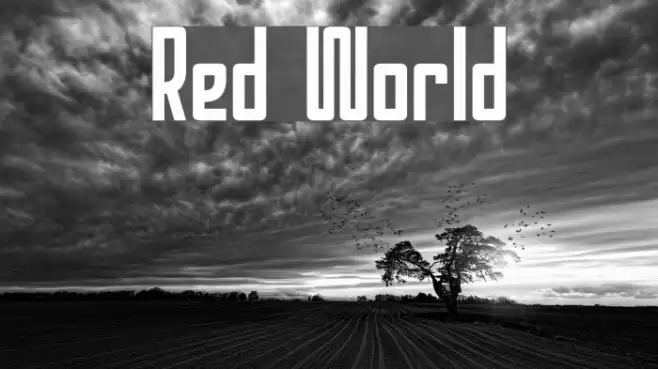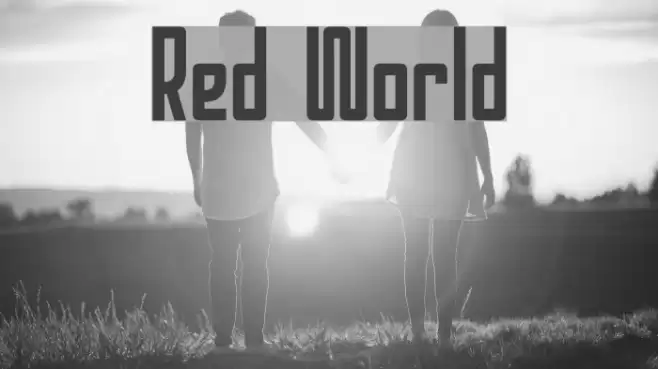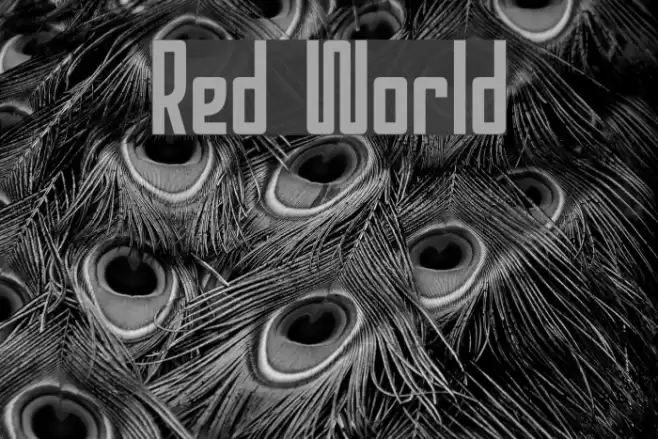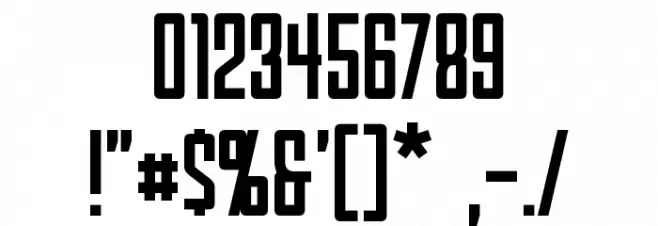
Red World Font
Red World Description
This font features a bold, geometric design with a distinctly modern and industrial feel. The characters are constructed with straight lines and sharp angles, giving it a strong and assertive presence. The uppercase letters are tall and narrow, while the lowercase letters maintain a consistent height, creating a uniform appearance. The numerals and special characters follow the same design principles, ensuring a cohesive look across all glyphs. The font's style is reminiscent of digital or futuristic themes, making it suitable for projects that require a contemporary and edgy aesthetic.
A bold, geometric font with a modern, industrial style from Uncategorized fonts.
- Proposed Projects: Ideal for branding, posters, digital media, and any project requiring a modern, edgy look.